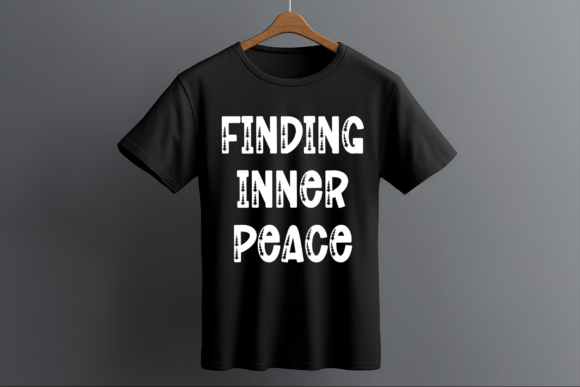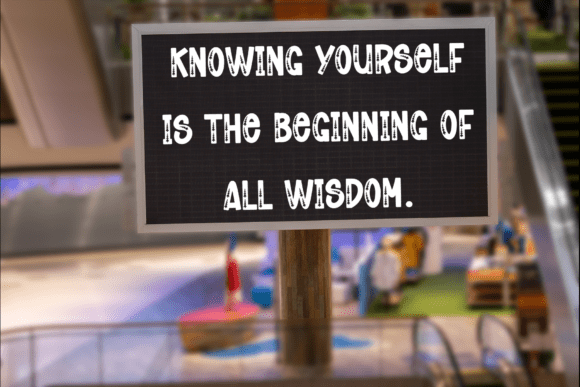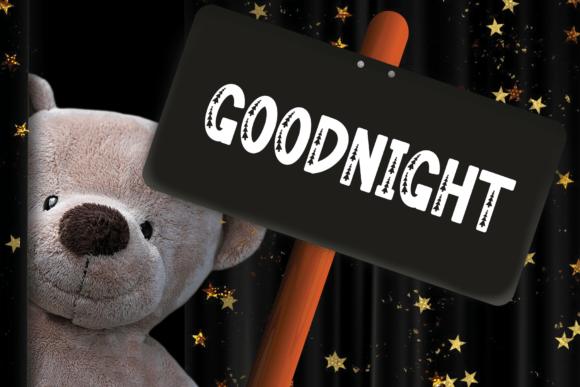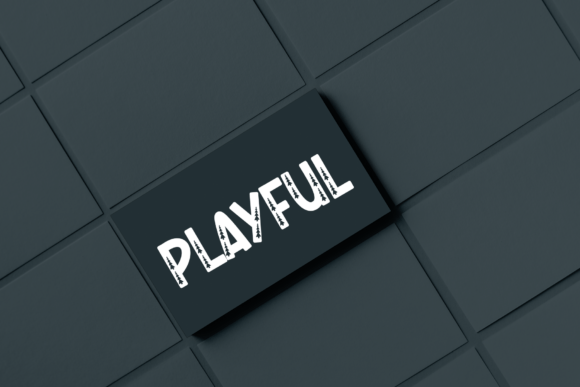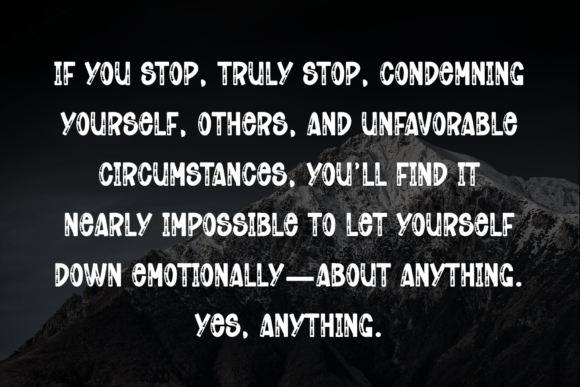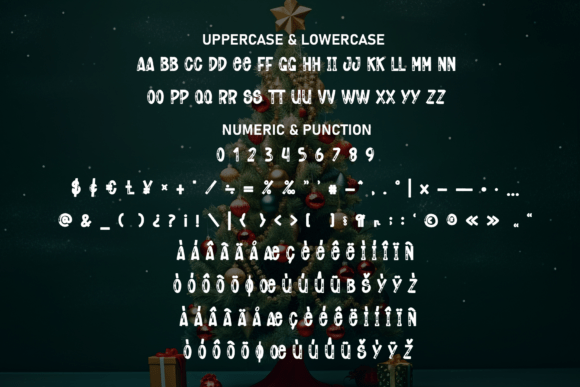
Christmas Tree Font: A Delightful Handwritten Display Font for Joyful Designs
Are you searching for a font that embodies the warmth and charm of the holiday season? Look no further than the Christmas Tree Font, a delightful handwritten display font that is sure to bring a touch of joy and innocence to your designs. With its inviting atmosphere and playful sparkling touch, this font is perfect for wedding invitations, greeting cards, and any design that requires a classic yet laid-back appeal.
A Font that Embodies Warmth and Charm
The Christmas Tree Font is a sublime representation of joy and innocence, making it the perfect addition to any design that requires a touch of whimsy and lightheartedness. Its endearing and sweet personality binds style and playfulness, ensuring that your artwork resonates with a classic yet laid-back appeal. Whether you’re a designer or crafter, this font is sure to inspire your creativity and add a touch of magic to your projects.
The Christmas Tree Font is a versatile font that can be used for a variety of design projects, including wedding invitations, greeting cards, and more. Its playful and sparkling touch makes it perfect for designs that require a touch of whimsy and fun. Imagine creating beautiful wedding invitations that set the tone for a joyful and festive celebration, or designing greeting cards that bring a smile to the recipient’s face.
Add a Touch of Whimsy and Lightheartedness to Your Designs
With the Christmas Tree Font, you can add a touch of whimsy and lightheartedness to your designs, making them truly unique and eye-catching. Whether you’re designing for the holiday season or just want to add a touch of fun to your artwork, this font is sure to deliver. Its classic yet laid-back appeal makes it perfect for designers and crafters who want to create designs that are both stylish and playful.
Key Features of the Christmas Tree Font
- Delightful handwritten display font
- Embodied with warmth and charm
- Perfect for wedding invitations, greeting cards, and designs
- Adds a touch of whimsy and lightheartedness to designs
- Endearing and sweet personality
- Binds style and playfulness
- Classic yet laid-back appeal
Tips for Using the Christmas Tree Font
To get the most out of the Christmas Tree Font, here are a few tips to keep in mind:
- Use it for headings and titles to add a touch of whimsy and fun
- Pair it with other fonts to create a unique and eye-catching design
- Use it for digital and print designs, including wedding invitations, greeting cards, and more
In conclusion, the Christmas Tree Font is a delightful handwritten display font that is sure to bring a touch of joy and innocence to your designs. With its inviting atmosphere and playful sparkling touch, it’s perfect for wedding invitations, greeting cards, and any design that requires a classic yet laid-back appeal. Whether you’re a designer or crafter, this font is sure to inspire your creativity and add a touch of magic to your projects.